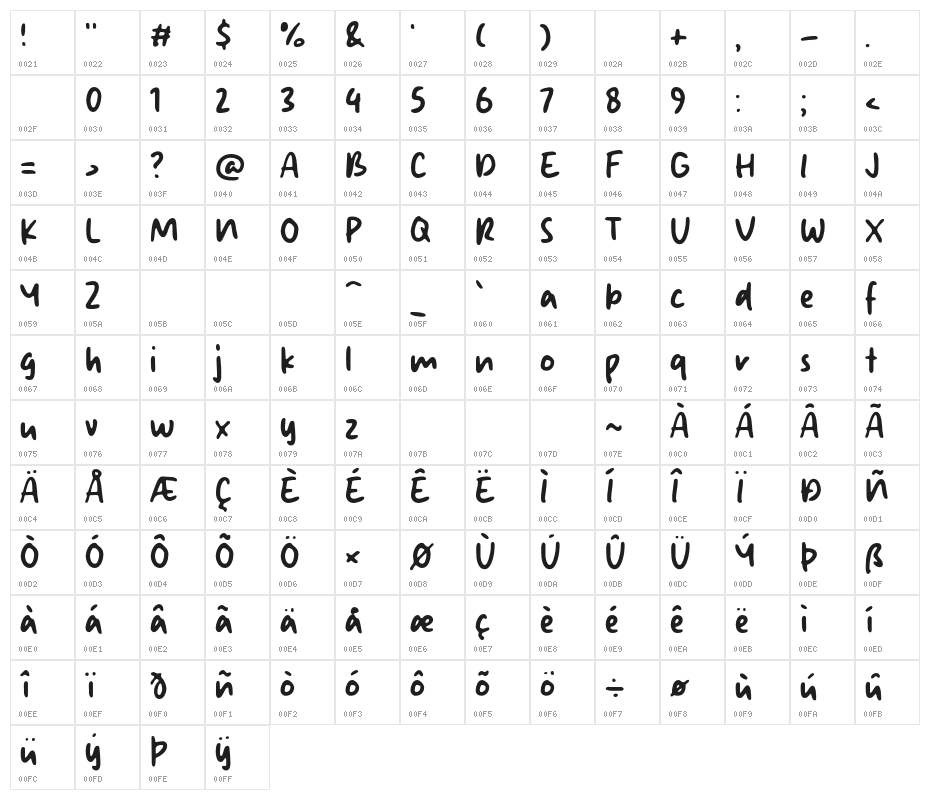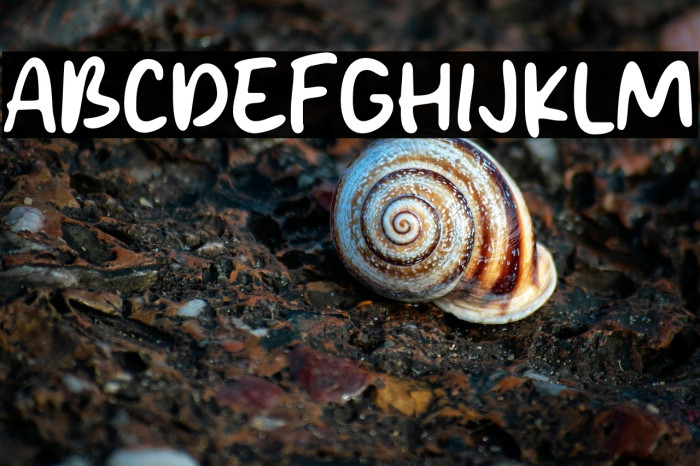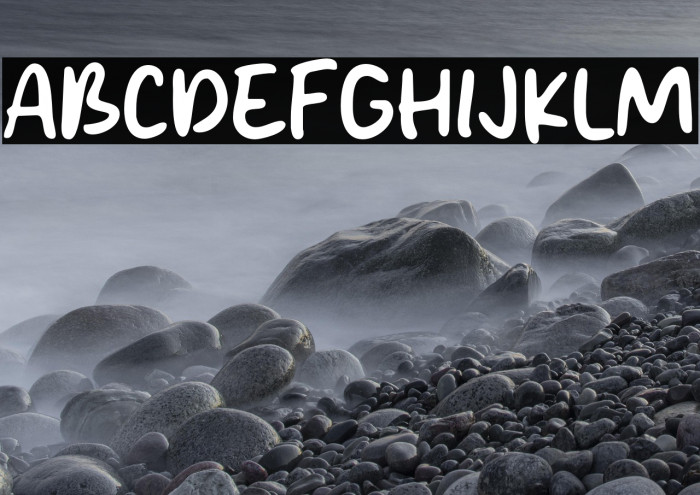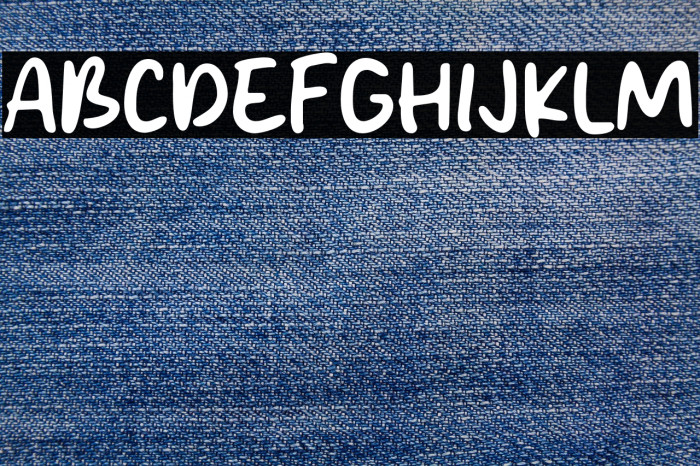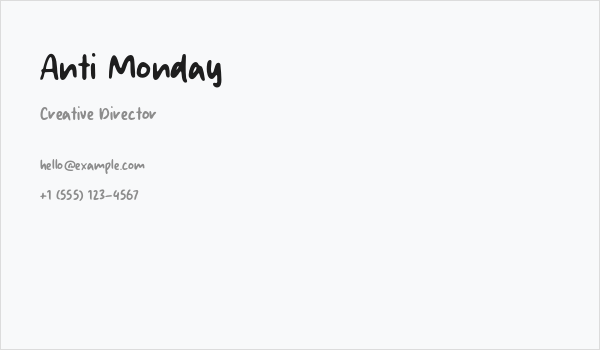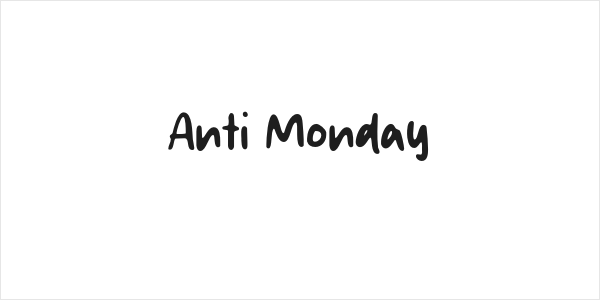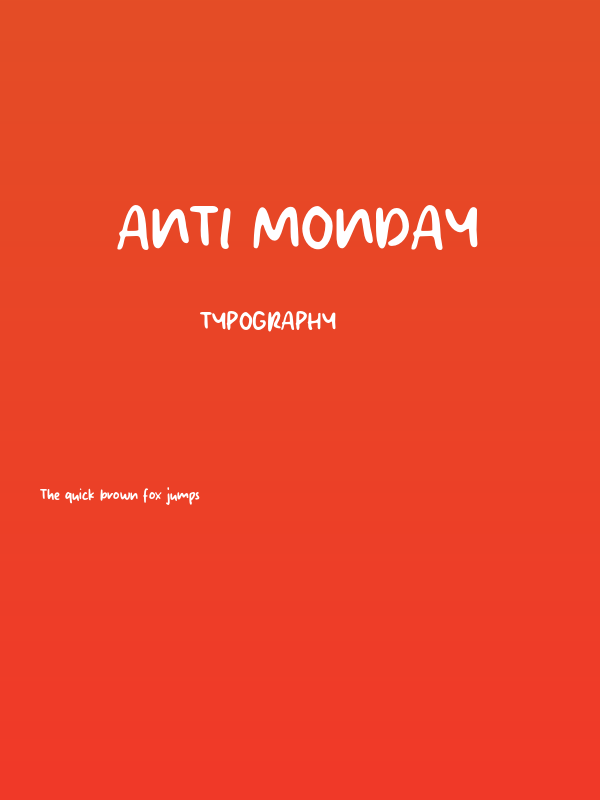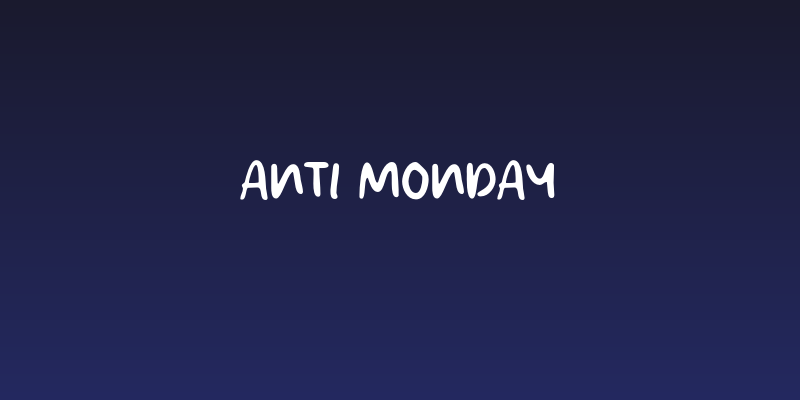
Anti Monday Font
Anti Monday Description
A playful, rounded handwritten font with consistent stroke width, casual letterforms, and a friendly, informal appearance. The characters are slightly irregular, mimicking natural handwriting, with open counters and smooth curves.
| Overall Style | Playful, Informal, Friendly |
| Use Case | Headlines, Short text, Logos, Posters |
| Proposed Projects | ChildrenΓ’β¬β’s books, greeting cards, posters, social media graphics, informal branding. |